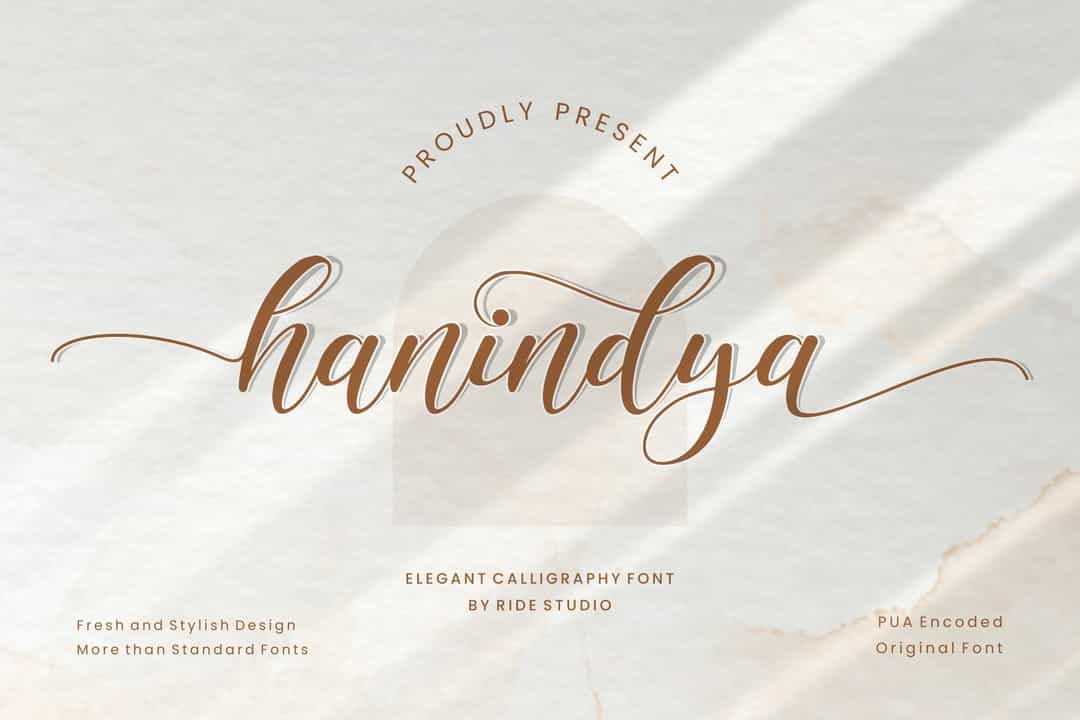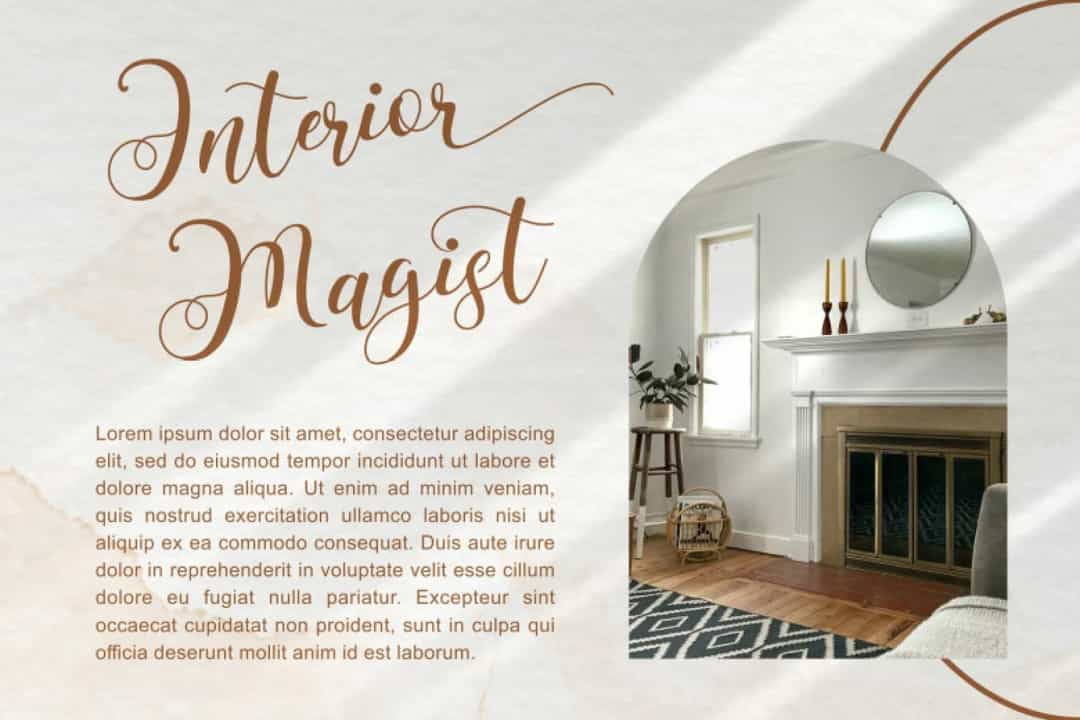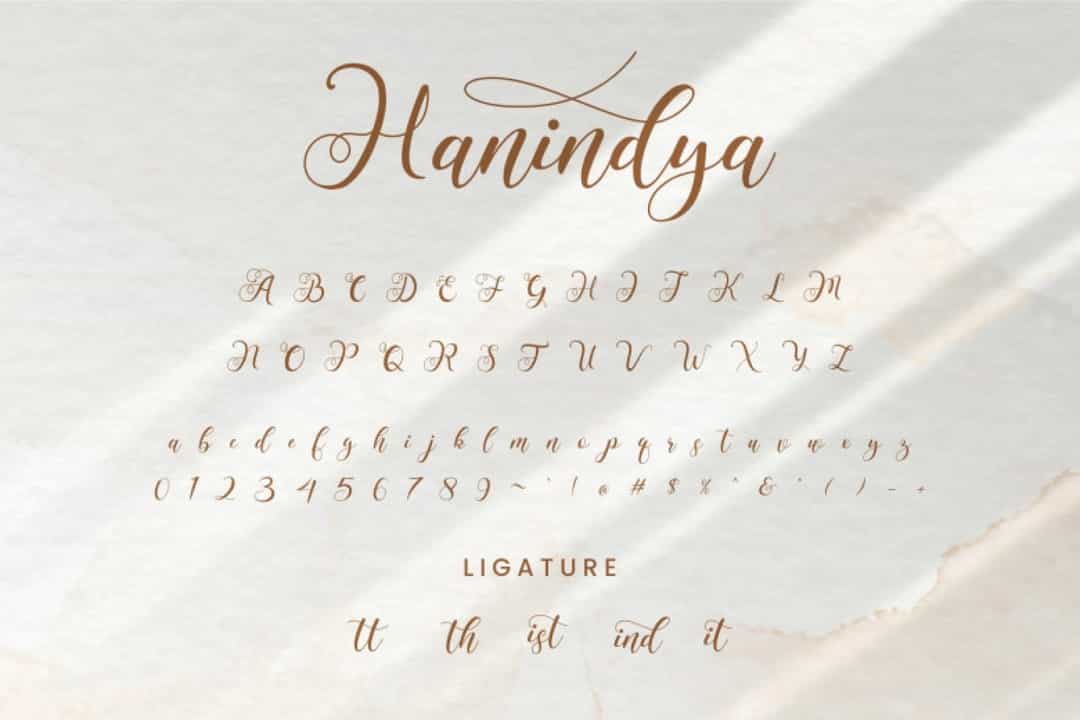
Hanindya is an elegant handwritten script font with an attractive look and feel, creating the perfect balance between beauty and balance for use as wedding invitation cards or decor. Additionally, this font can also be utilized for corporate design applications, logo creation for business cards and book titles as well as brand name branding purposes.